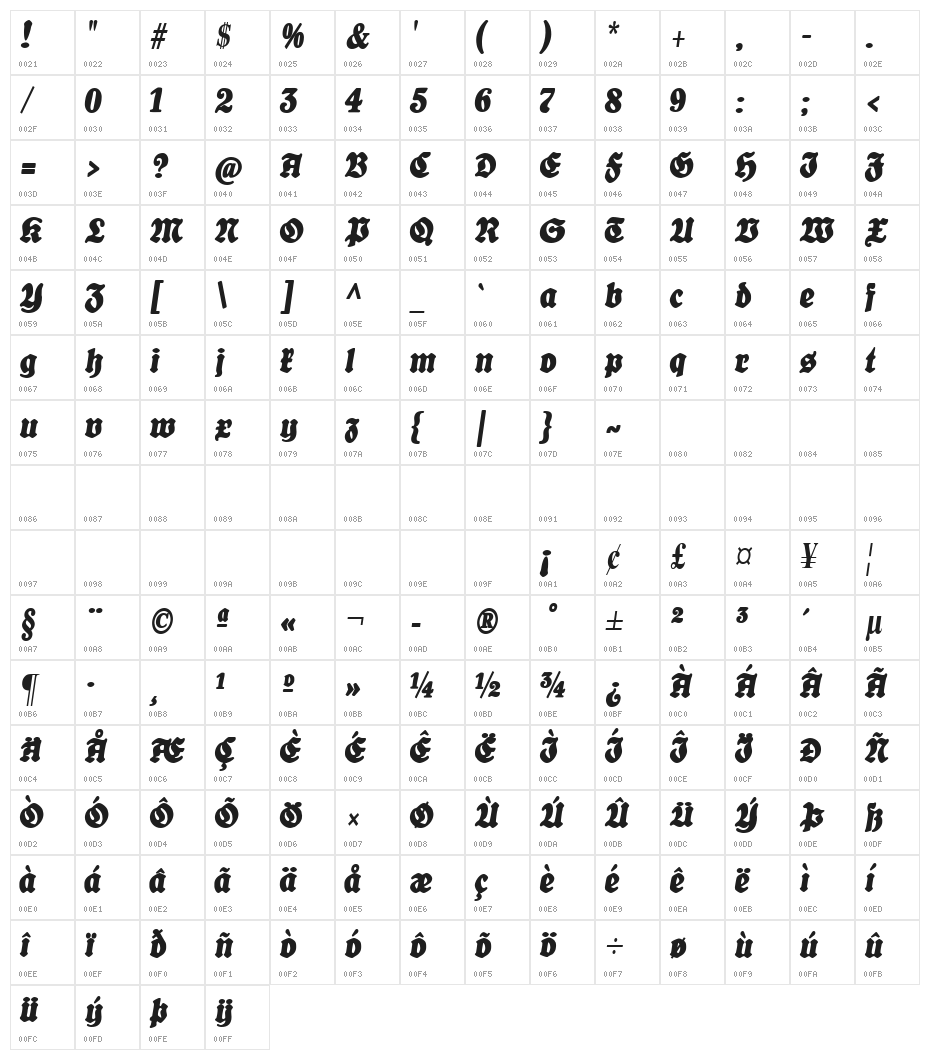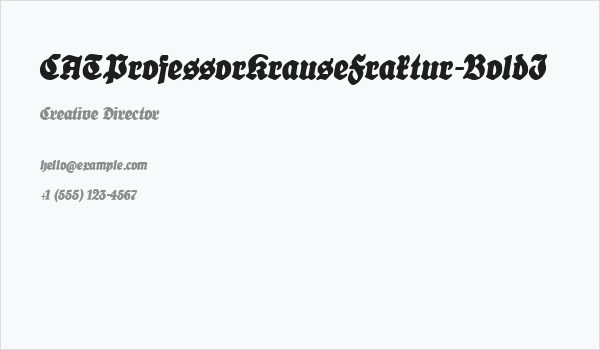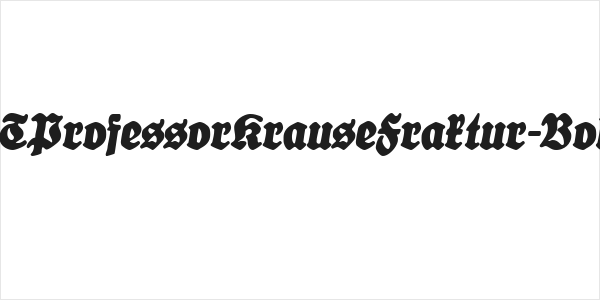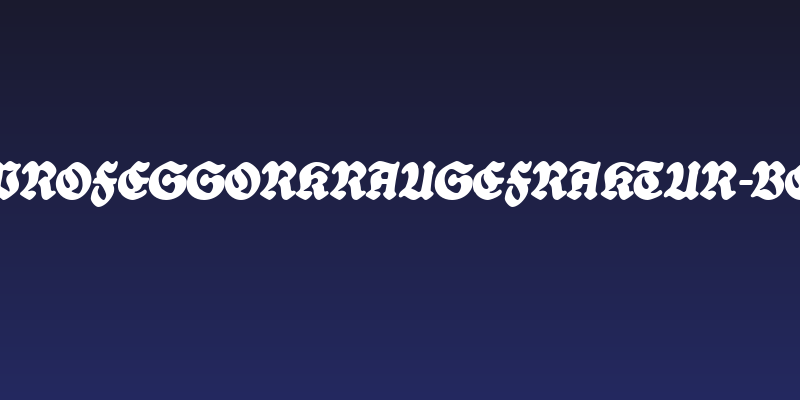
CATProfessorKrauseFraktur-BoldI Font
CATProfessorKrauseFraktur-BoldI Description
This font features a bold and dramatic style, reminiscent of traditional blackletter typography. The characters are ornate with sharp, angular edges and intricate details, giving them a gothic and historical appearance. The uppercase letters are particularly elaborate, while the lowercase letters maintain a consistent style with slightly less ornamentation. The numerals and special characters are designed to match the overall aesthetic, ensuring a cohesive look across all text. This font is highly decorative and commands attention, making it suitable for projects that require a strong visual impact.
| Overall Style | Gothic, Historical |
| Proposed Projects | Ideal for use in branding, posters, book covers, and any design that seeks to evoke a historical or gothic feel. |